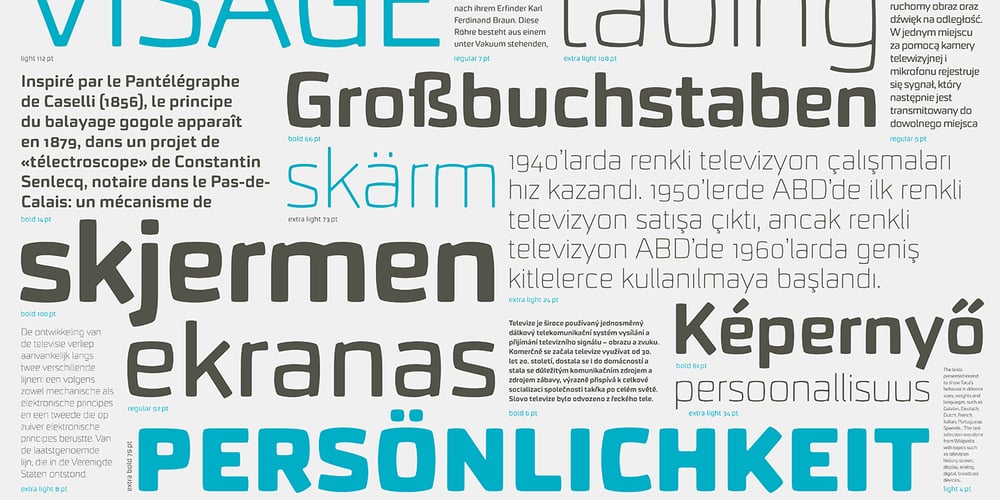
Taca Font Family was designed by Rúben Dias and published by Rúben R Dias. Taca contains 5 styles and family package options. Taca is a typeface built around a shape that Portuguese designer Rúben R Dias calls a “squircle” — neither square nor circle. We usually associate the rounded, convex box with the television screens of the 1960s and Aldo Novarese’s classic typeface, Eurostile. But whereas Eurostile is cold and machined, Taca is warm and rugged, as if it was molded from clay or carved from stone. Taca’s organic nature is also derived from another unique feature: rounded crotches at the right angles where perpendicular strokes meet. This subtle finish, along with blunt stroke endings, softens the otherwise rigid skeleton. With such a strong conceptual vision, Taca could be relegated to the bin of experimental designs, severely limited in their application. But that fate is usually born of a less experienced maker. As a teacher, designer, and letterpress printer, Dias is a type user, keenly aware of the functional requirements of good type. Taca is therefore not a slave to its concept, but a working font family, effective in various sizes and environments. Its lettershapes break away from the base shape whenever it makes sense for legibility, while still maintaining the flavor of the design as a whole. That said, a set of squircle-shaped alternates give the user the flexibility to get more stylized if the situation calls for it. Fitting to its functional aims, Taca has many of the features one expects of a proper text font: upper and lowercase figures, case-sensitive punctuation, and Extended Latin language support. The simplicity, openness, and squareness of Taca’s forms also make it an ideal design for the pixel grid of screen displays.